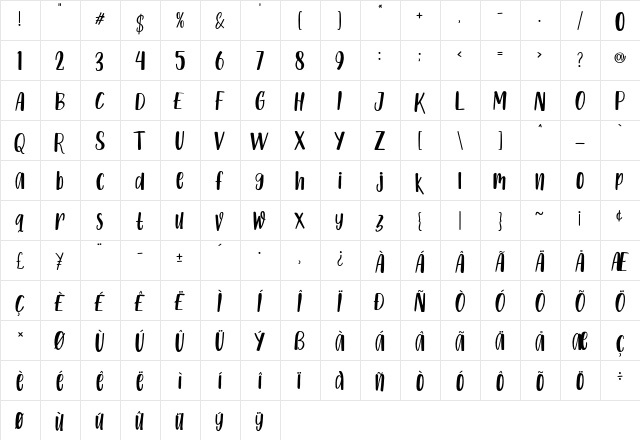
Cloudy Regular
| Foundry | Astageni Type |
| Designer | Nur Solikh |
Design Context for Cloudy Typeface
Cloudy is a composed and adaptable typeface that performs quietly and consistently across a wide range of design contexts.